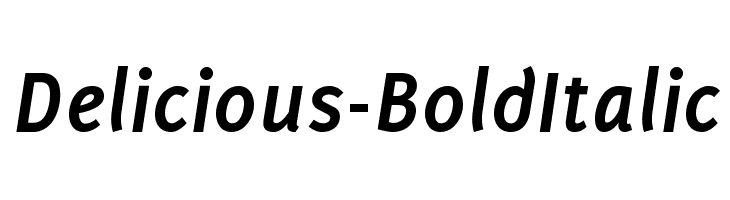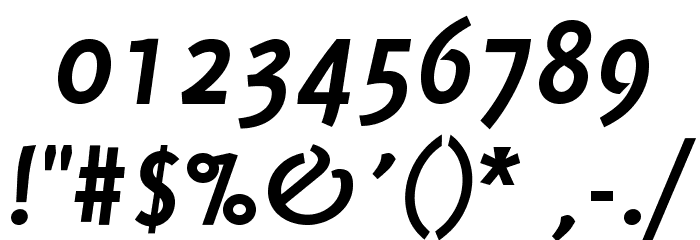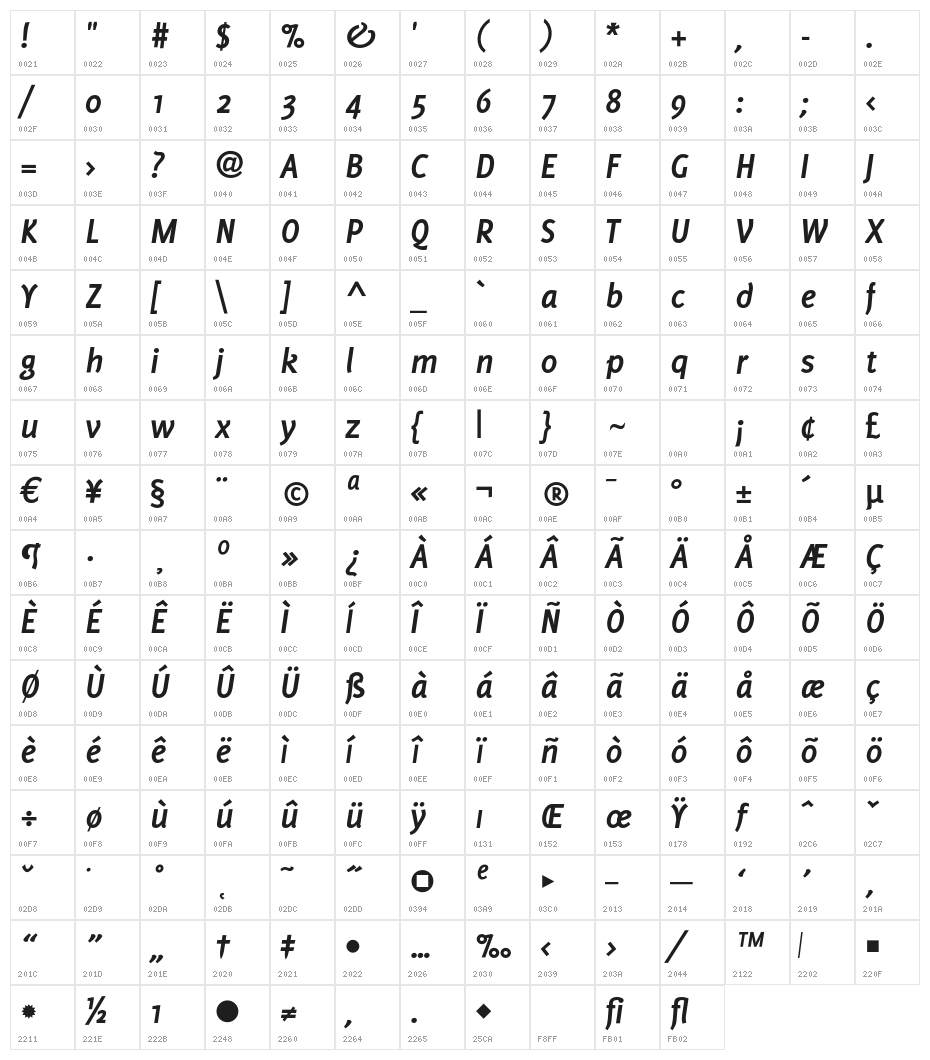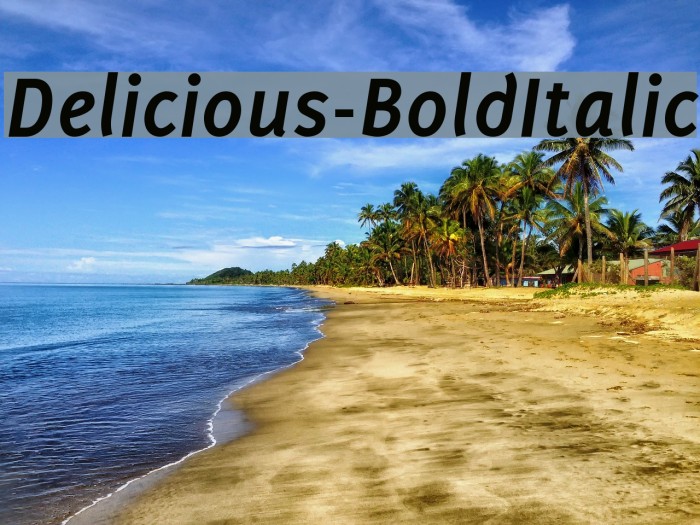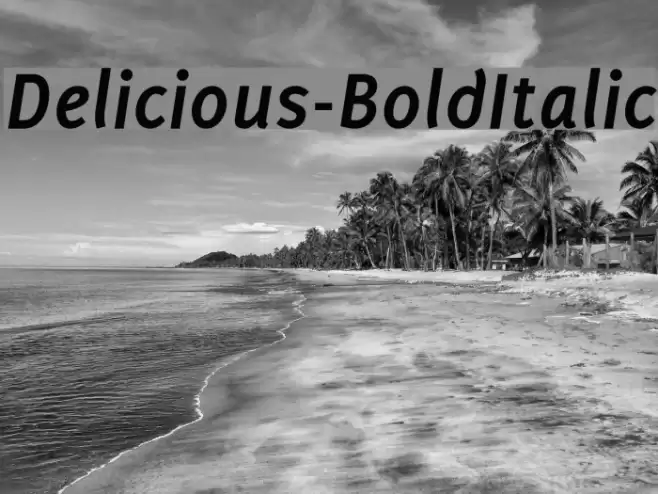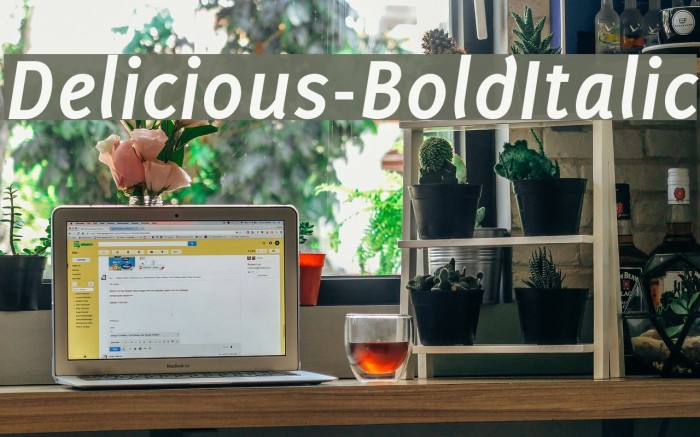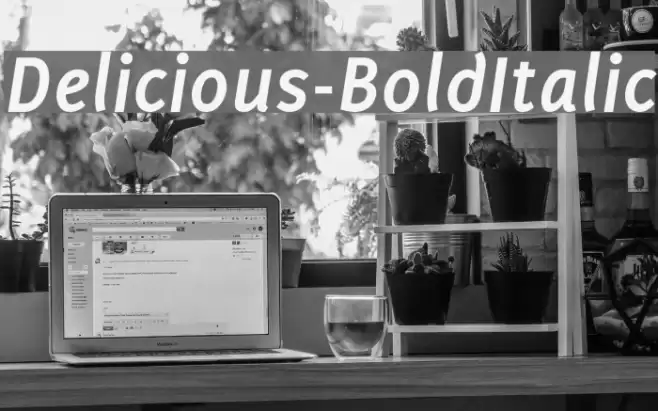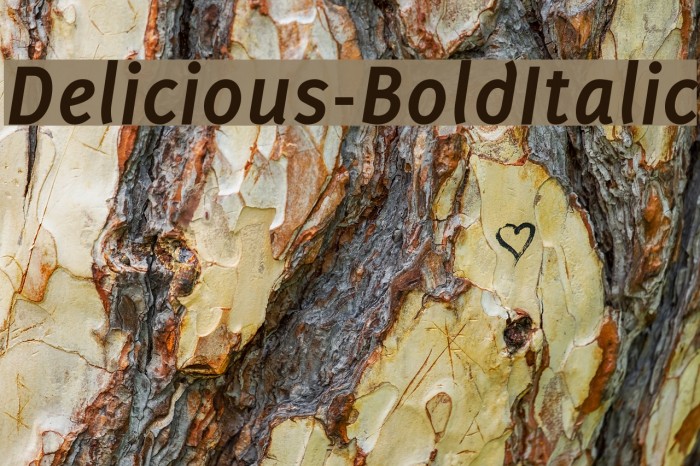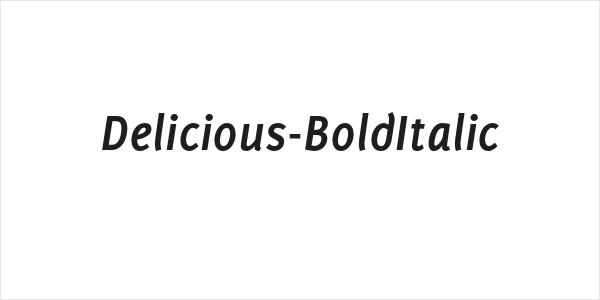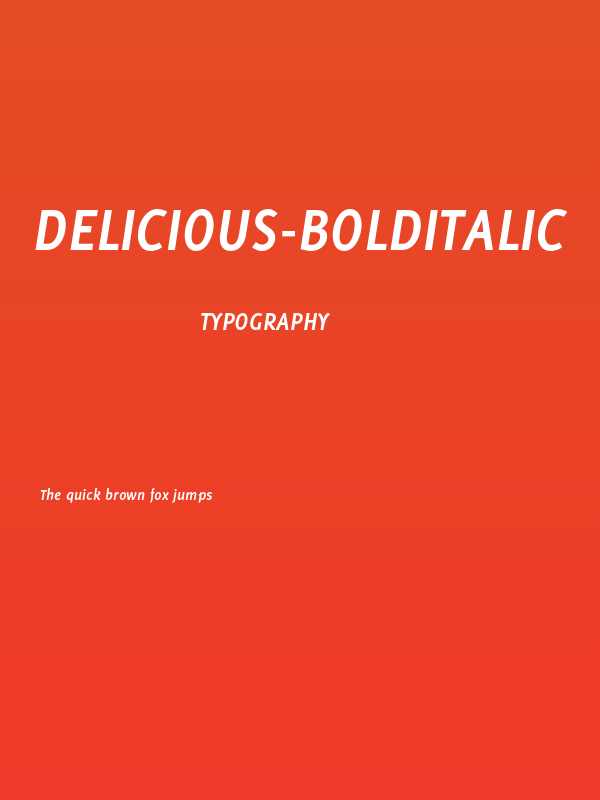
Delicious-BoldItalic Font
Delicious-BoldItalic Description
This font features a bold and italic style, characterized by its dynamic and flowing letterforms. The uppercase letters are strong and assertive, while the lowercase letters maintain a sense of elegance and movement. The numbers are clear and distinct, ensuring readability. Special characters are well-designed, adding versatility to the font. The overall appearance is modern and slightly playful, making it suitable for a variety of design applications.